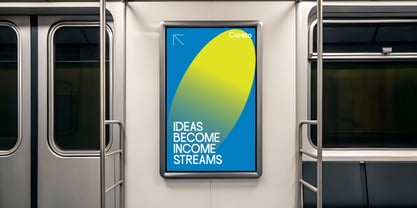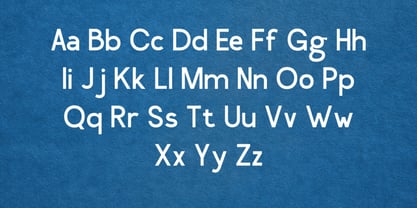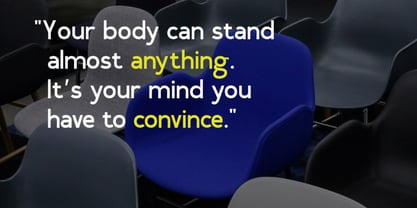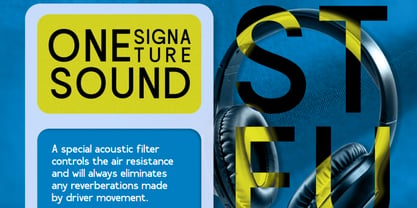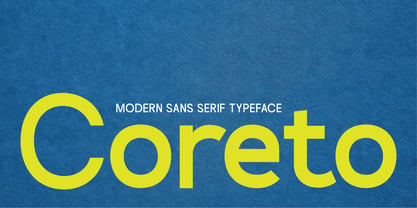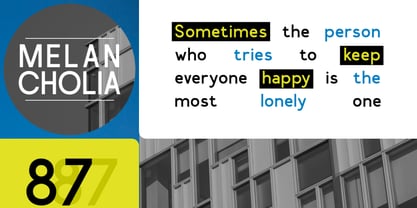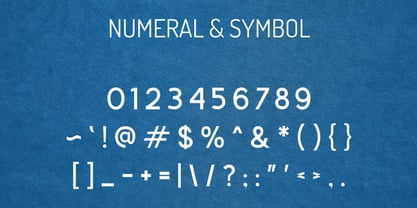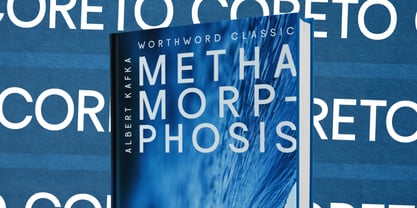
Coreto
par Vadova Std
La famille de polices Coreto a été conçue par et publiée par Vadova Std. Coreto contient 1 styles. En savoir plus sur cette famille
Coreto is a modern sans serif typeface built with clean geometry, balanced proportions, and a smooth contemporary structure. The letterforms feature consistent stroke weight, open counters, and precise spacing that create high readability across both headlines and body text. Coreto is a modern sans serif typeface built with clean geometry, balanced proportions, and a smooth contemporary structure. The letterforms feature consistent stroke weight, open counters, and precise spacing that create high readability across both headlines and body text.